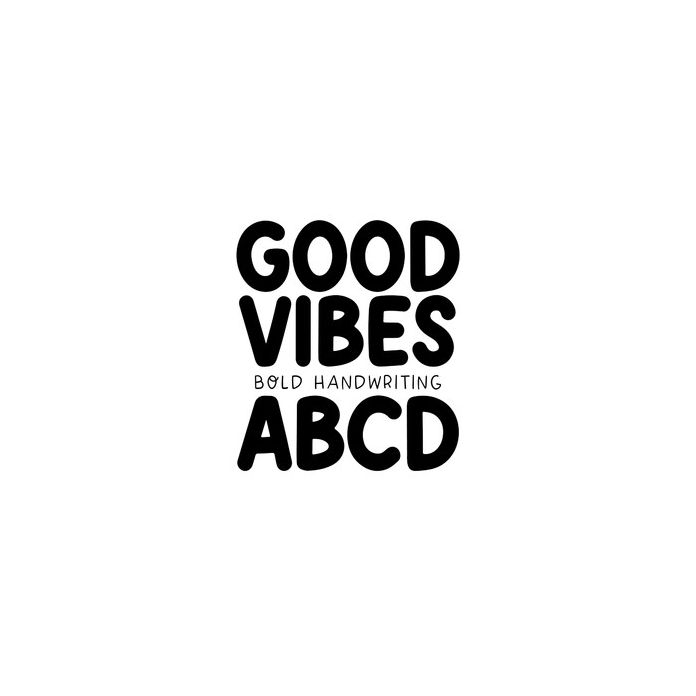
BFC Good Vibes Bold Marker Handwriting Goodnotes Font
Good Vibes is a bold and simple marker handwriting font. perfect for goodnotes and digital planners!